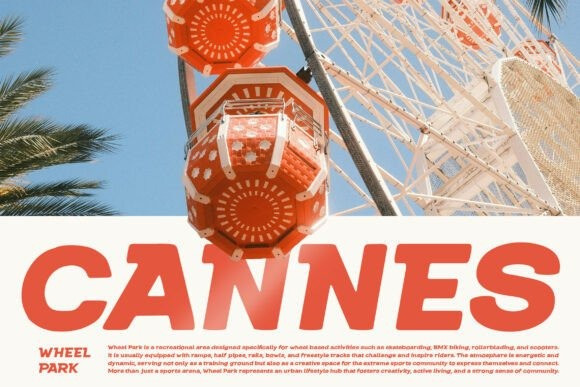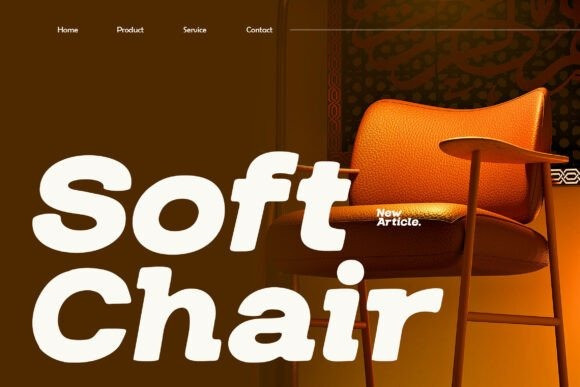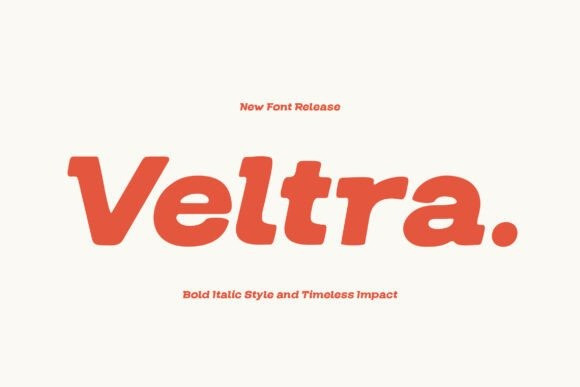
Veltra Font
Veltra Font is a bold display sans-serif font that blends modern sophistication with a dynamic, italic edge. Its smooth curves, confident strokes, and subtle geometric balance create a striking look that commands attention while maintaining a clean, versatile style.
Perfect for branding, editorial layouts, posters, or social media graphics, Veltra’s bold italic flair brings energy and contemporary elegance to every project.
Whether you’re crafting sleek logos or high-impact headlines, this font delivers timeless appeal with a modern twist, ensuring your designs stand out with effortless confidence.